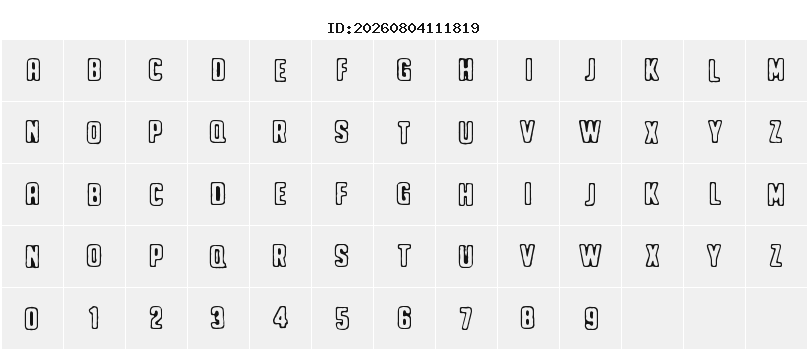
Noppalukemat Preview
• Font Name: Noppalukemat
• Font ID: Noppalukemat:Version 1.00
• Full Font Name: Noppalukemat
• Version: Version 1.00 April 27, 2014, initial release
• PostScript Name: Noppalukemat
About Noppalukemat.ttf
Noppalukemat.ttf is a modern, elegant sans-serif font designed for ultimate readability and visual harmony. Perfect for branding, headlines, web design, and print materials.